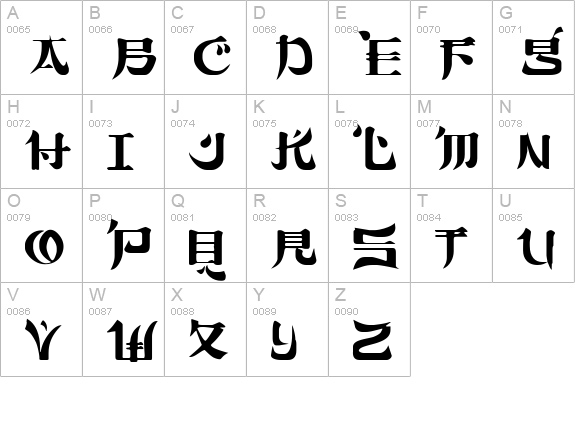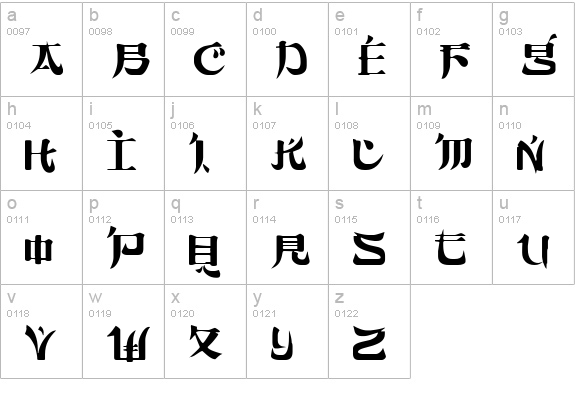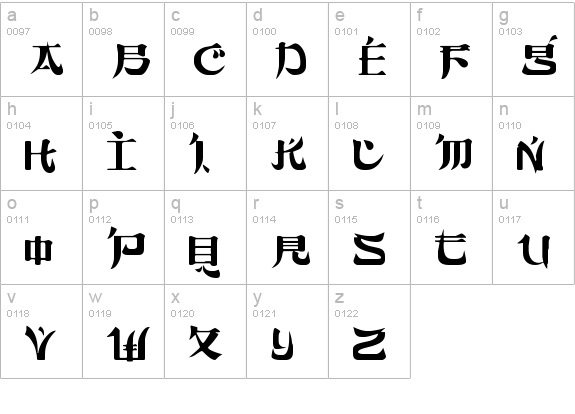
Sumdumgoi Regular is the standard, neutral variant in the Sumdumgoi typeface family \xE2\x80\x94 well suited to general body text, paragraphs, and standard typographic work.
Sumdumgoi Regular font is a versatile and elegant typeface that brings a touch of sophistication to any design project. With its clean lines and classic appeal, this font is perfect for a wide range of applications, from branding and advertising to editorial design and more. The timeless design of Sumdumgoi Regular font makes it suitable for both print and digital projects, adding a touch of professionalism and style. What makes Sumdumgoi Regular font even more appealing is that it is available for free download at FontsMarket.com. This means that you can easily access this high-quality font without any cost, making it a valuable addition to your font library. Whether you are a professional designer or a hobbyist looking to elevate your projects, Sumdumgoi Regular font is a fantastic choice that won't break the bank. Download it today and add a touch of elegance to your next design endeavor.